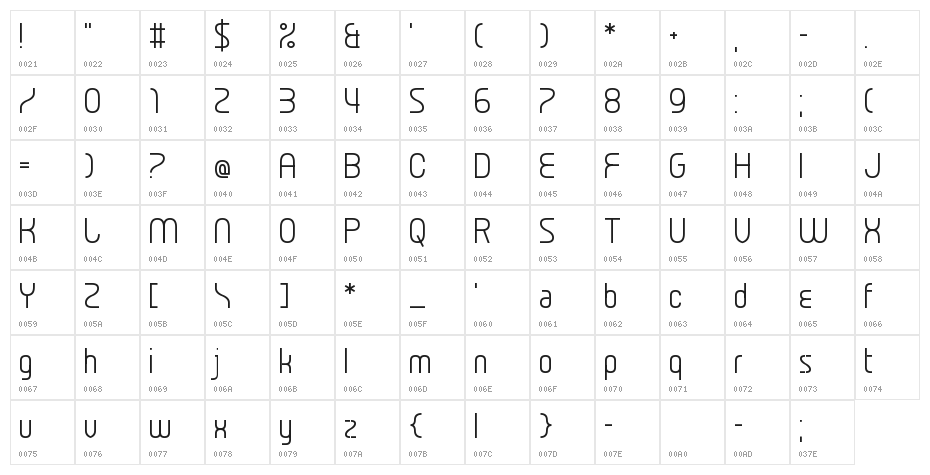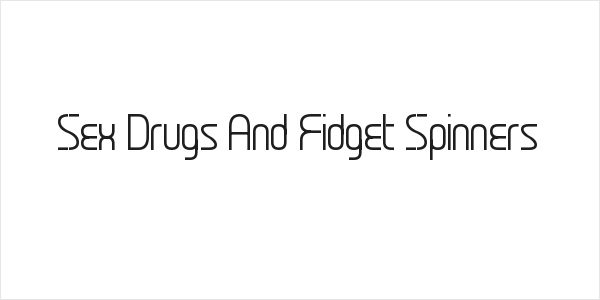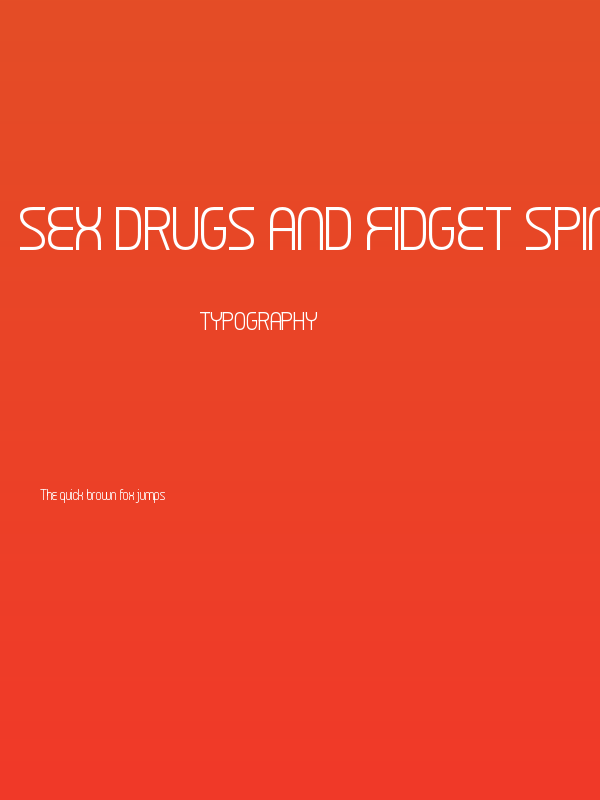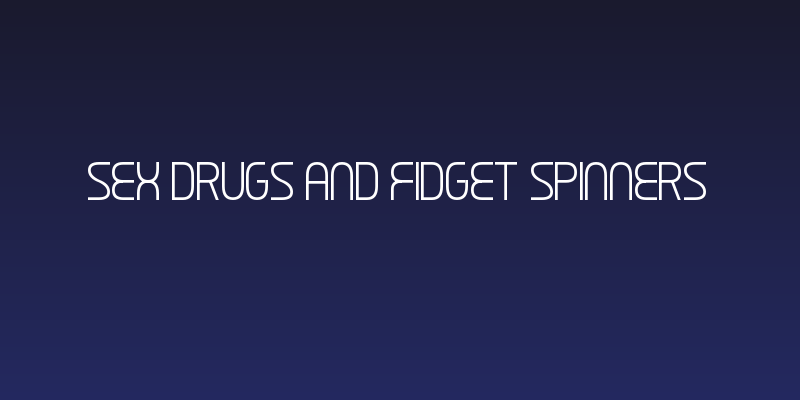
Sex Drugs And Fidget Spinners Font
Sex Drugs And Fidget Spinners Description
This font features a modern, geometric style with rounded edges and a clean, streamlined appearance. The uppercase and lowercase letters maintain a consistent height, contributing to a uniform look. The numerals are designed to match the letterforms, ensuring a cohesive appearance across all characters. Special characters are included, each crafted with the same attention to detail and geometric precision. The font's overall aesthetic is contemporary and minimalistic, making it suitable for a variety of design applications. Its clarity and simplicity make it highly readable, even at smaller sizes.
| Use Case | Headlines, Logos, Web design |
| Proposed Projects | Ideal for tech branding, modern web design, app interfaces, and minimalist posters. |